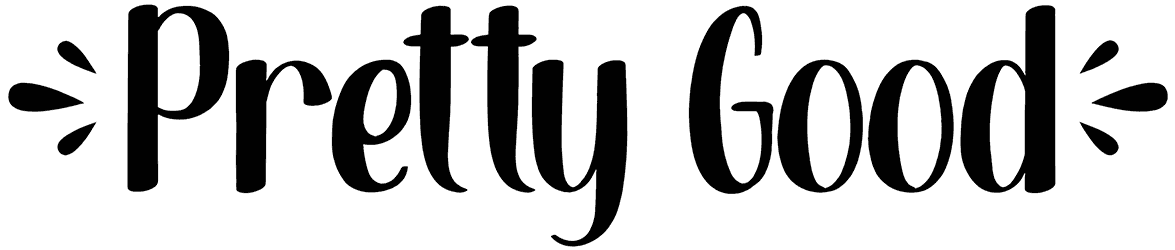
Pretty Good Font
With its simple design and eye-catching layout, Pretty Good is an excellent option for anyone looking to express themselves boldly with their words. This summer font has playful curves that can turn any simple text into an artistic masterpiece without the lack of numbers limiting your creativity. So unleash your inner artist to take your logos, invitations, and album covers to the next level.